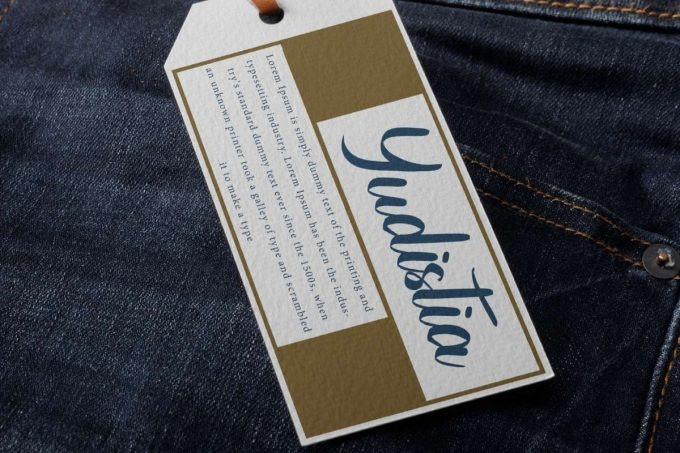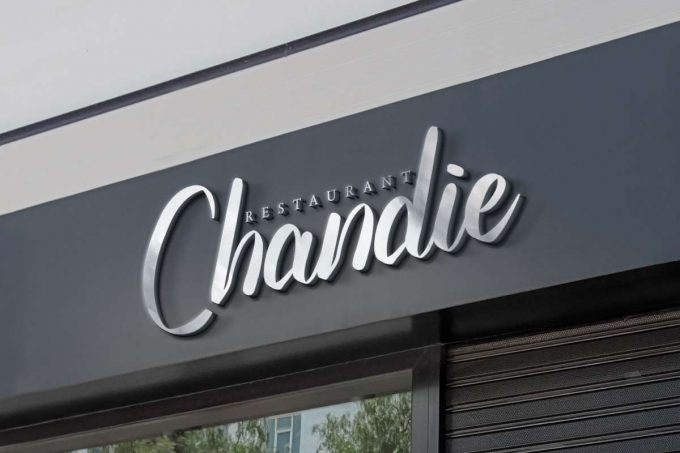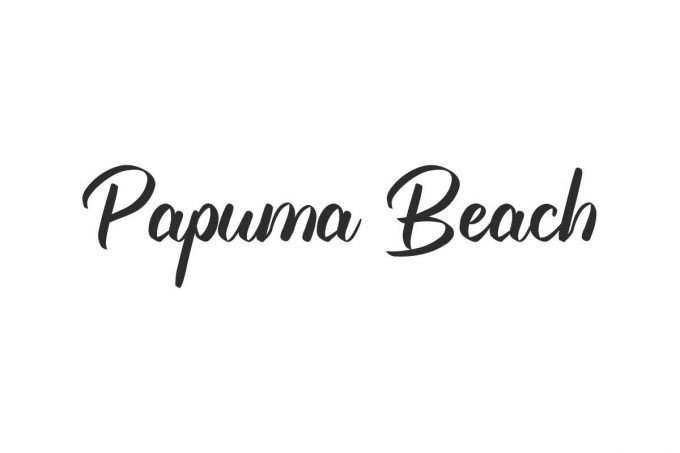
Papuma Beach Font
Papuma Beach Script Font is a modern and casual calligraphy font with a fresh look, designed by NihStudio. This font takes on a fun beach theme which gives typography a fresh look that will add the visual beauty of your designs, such as brand logo, catalog, cover, greeting card, label, poster, product packaging, quote, screen print, signage, stationery, sticker, title, watermark, website, and much more!
Papuma Beach Font comes with a full set of Uppercase and Lowercase Basic Characters, Number, Punctuation, Symbol. It can also be primary or secondary text (combined with sans/serif fonts) capable of presenting aesthetic visualization in the font. Use this for your business industry such bakery, clothing brand, cooking lessons, craft, culinary, florist, food or drink, furniture, photography, printing, publishing, real estate, restaurant, spa salon, etc.